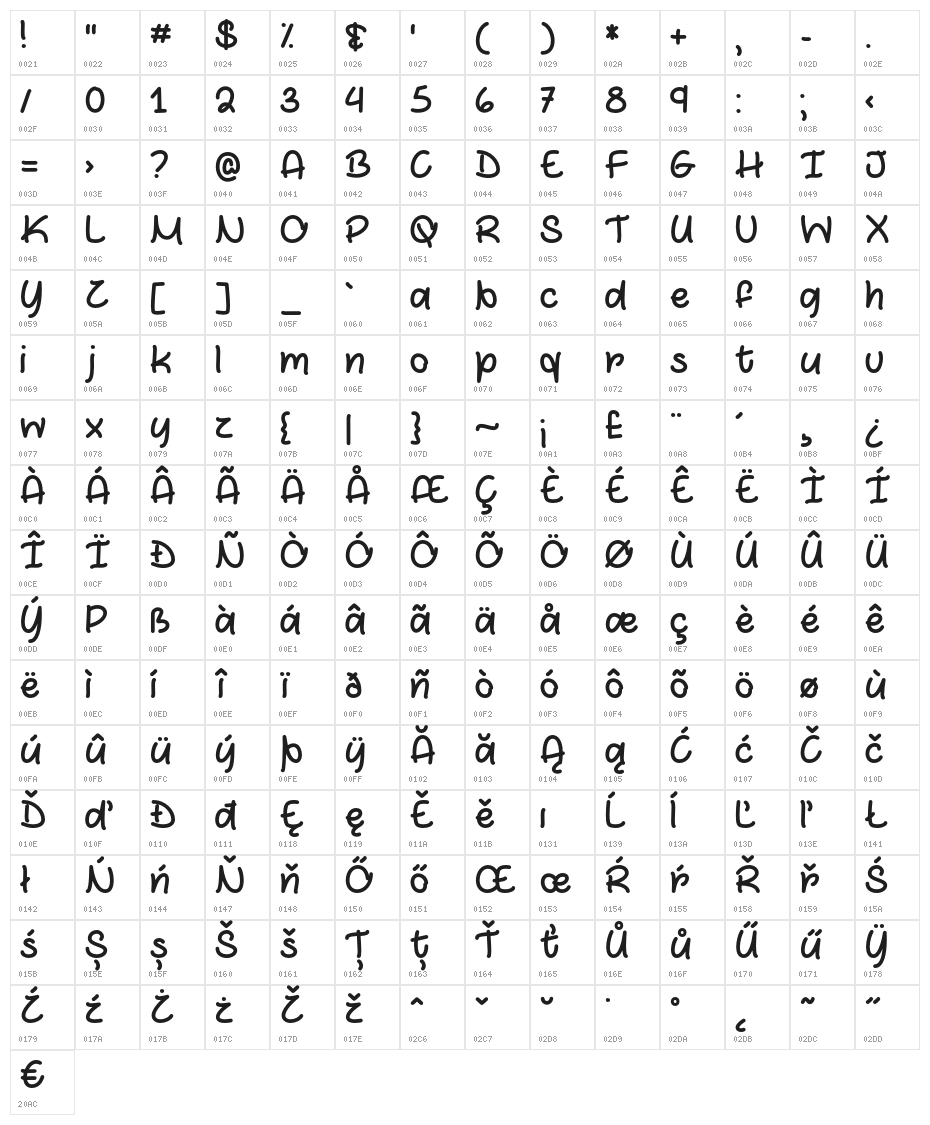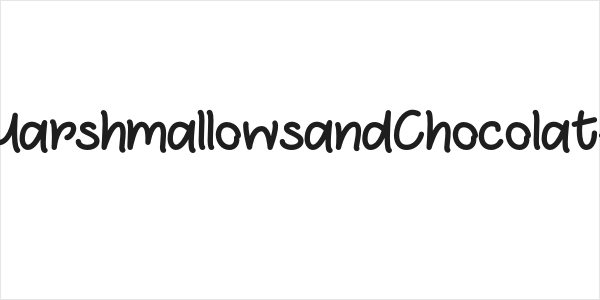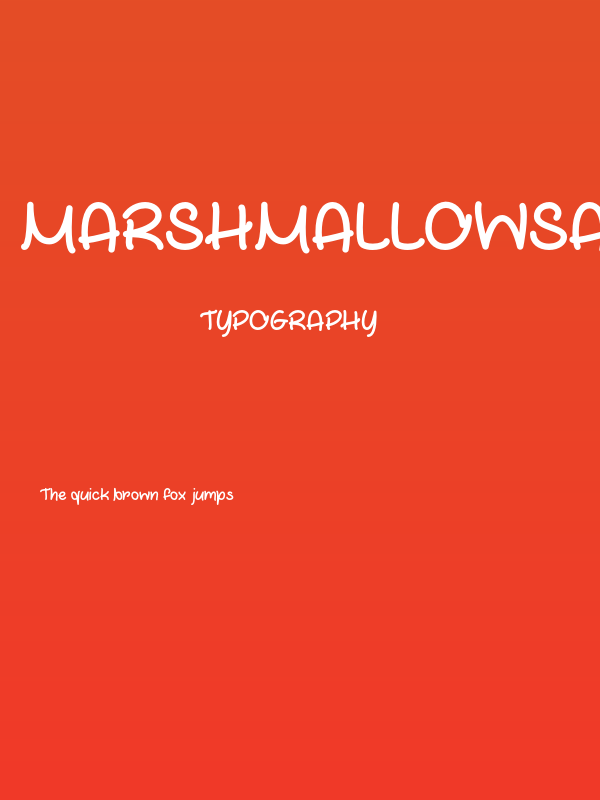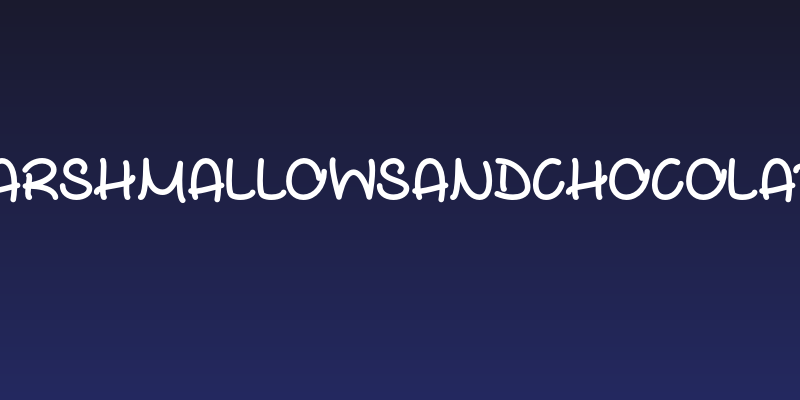
MarshmallowsandChocolate Font
MarshmallowsandChocolate Description
This playful and rounded font exudes a sense of fun and approachability. The characters are bold and slightly irregular, giving them a hand-drawn appearance that adds a personal touch. The uppercase and lowercase letters maintain a consistent style, with smooth curves and a uniform thickness throughout. The numbers and special characters are equally whimsical, making this font suitable for creative and informal applications. Its legibility and charm make it ideal for projects that aim to convey warmth and friendliness.
| Overall Style | Playful, Casual |
| Proposed Projects | Ideal for children's books, greeting cards, playful branding, and casual invitations. |